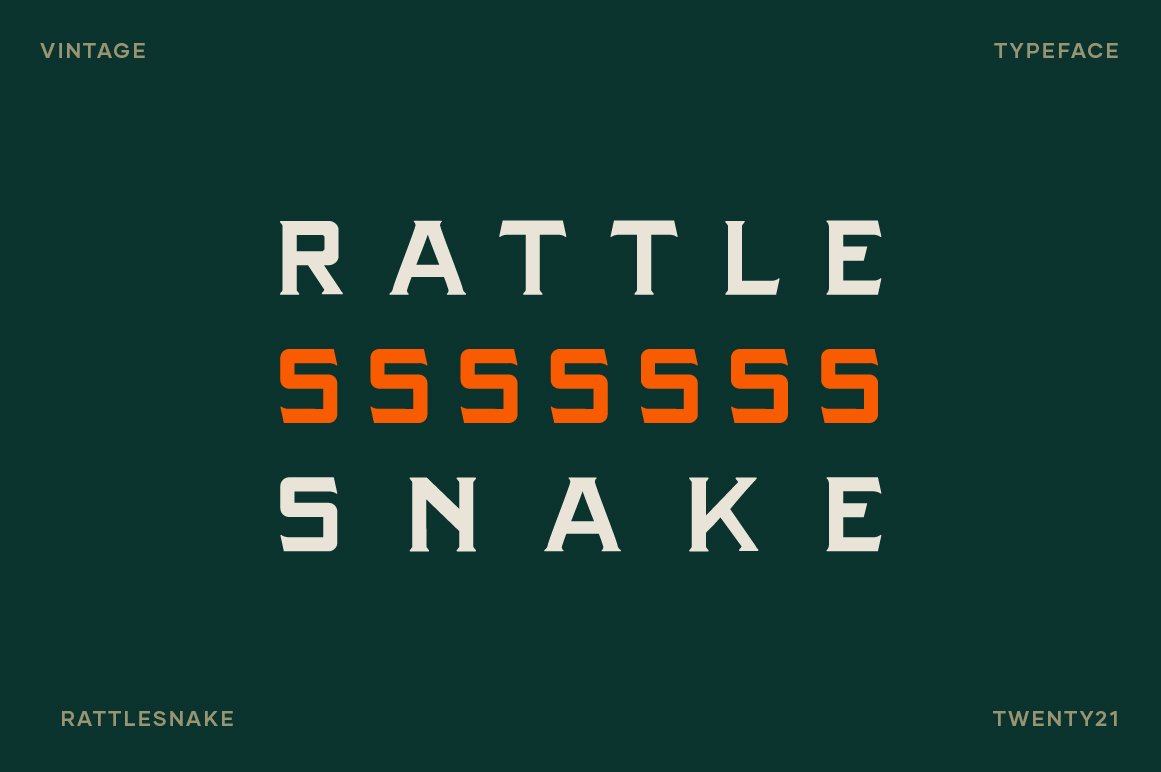
Fonts › Rattlesnake Image 1 of 13 Image 2 of 13 Image 3 of 13 Image 4 of 13 Image 5 of 13 Image 6 of 13 Image 7 of 13 Image 8 of 13 Image 9 of 13 Image 10 of 13 Image 11 of 13 Image 12 of 13 Image 13 of 13 Rattlesnake $15.00 Add To Cart Added! A masculine vintage display font with a sharp bite. Test It Out Rattlesssssssnake Font Size: 40px Letter Spacing: 0px Reviews Reviewer Name Review Date Star Rating Description Posted on Etsy Product Show More You Might Also Like Hotel Foxtrot $15.00 American Spirit $15.00 Mentalist - Display Font Sale Price: $5.00 Original Price: $15.00 Sale Espresso $15.00 Homosexual Agenda $15.00